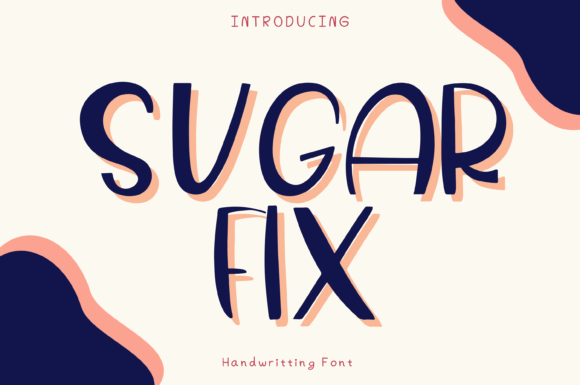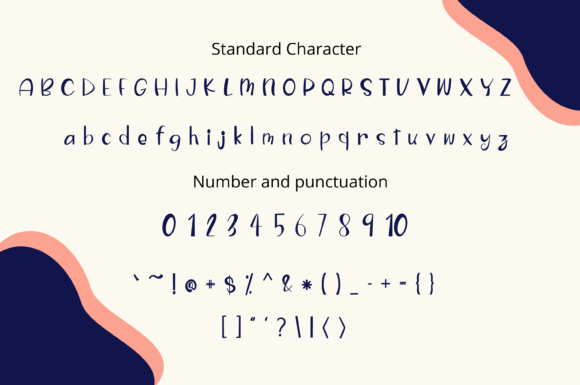
About Sugar Fix Font
Sugar Fix is a handwritten font that exudes whimsy and cleanliness. Its unique style makes it a perfect choice for a variety of applications. Whether it’s for branding projects, logos, greeting cards, or any other design that requires a handwritten touch, Sugar Fix is sure to impress.
The charm of Sugar Fix lies in its ability to add a personal and playful feel to any design. Its whimsical style can bring a sense of joy and creativity to your designs, making them more engaging and appealing to the audience.
Moreover, Sugar Fix is incredibly versatile. Its clean and whimsical design can easily be matched to a large set of projects. Whether you’re designing a logo for a brand, creating a greeting card, or crafting a heartfelt message, Sugar Fix can help you make a lasting impression.
In conclusion, Sugar Fix is more than just a font. It’s a design tool that can add a touch of whimsy and cleanliness to your designs. Its unique style and versatility make it a valuable asset for any designer. So, why wait? Incorporate Sugar Fix into your design today and witness the transformation. Experience the difference that a truly whimsical and clean font can make. Experience Sugar Fix.
With Sugar Fix, you’re not just choosing a font. You’re choosing a font that will make your design stand out, a font that will add character to your text, and a font that will leave a lasting impression on your audience. Choose Sugar Fix, and let your design speak for itself.
So, if you’re looking for a font that’s whimsical, clean, and has aesthetic value, look no further than Sugar Fix. It’s the perfect font for any design project, and it’s sure to make your design stand out. Try Sugar Fix today, and see the difference it can make in your design.